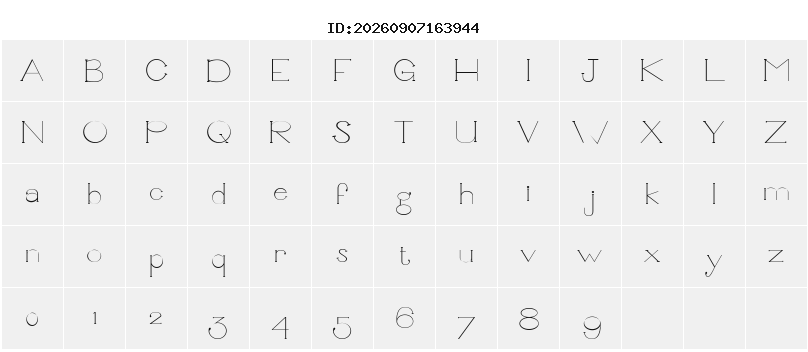
Unbalanced Preview
• Font Name: Unbalanced
• Full Font Name: Unbalanced
• PostScript Name: Unbalanced
About Unbalanced.ttf
Unbalanced.ttf is a modern, elegant sans-serif font designed for ultimate readability and visual harmony. Perfect for branding, headlines, web design, and print materials.